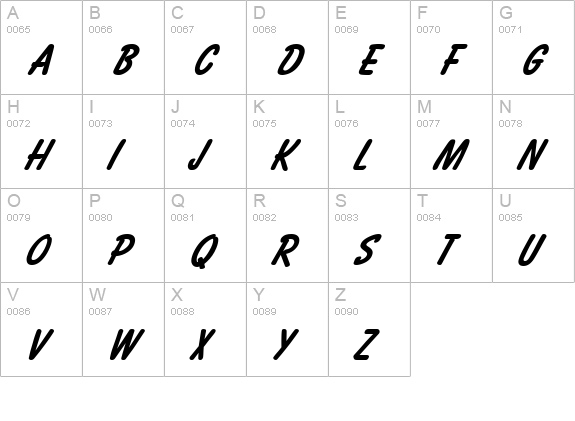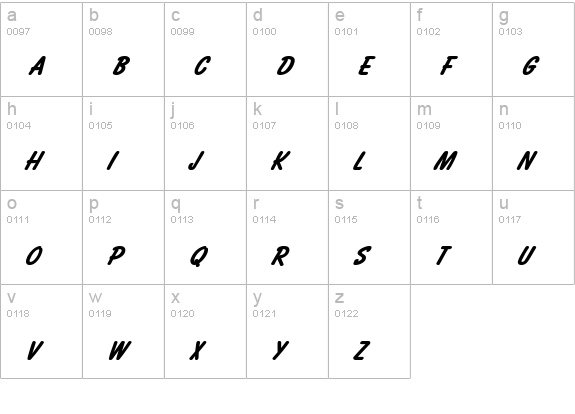
Bassett BoldItalic Font Details
Bassett BoldItalic font exudes a sense of modern elegance with its sleek and sophisticated design. The italicized style adds a touch of flair and creativity to any text, making it perfect for projects that require a bold yet artistic touch. Whether you're designing a logo, creating a website, or crafting eye-catching marketing materials, Bassett BoldItalic font is sure to make a lasting impression. Best of all, this stunning font is available for free download at FontsMarket.com. So why wait? Elevate your design projects with the timeless beauty of Bassett BoldItalic font today.